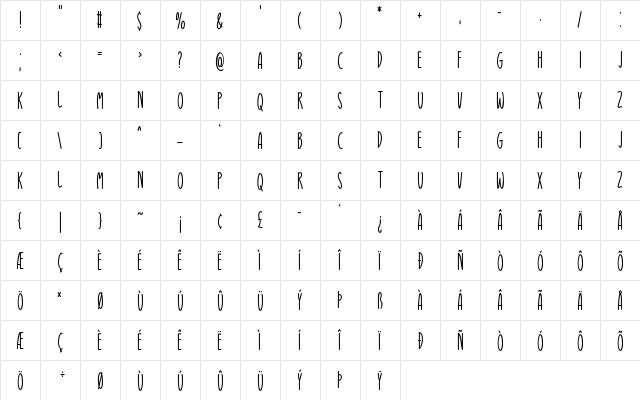
Look Within Regular Font Preview
Look Within Regular
Design Context for Look Within Typeface
Look Within takes a measured approach to typography — its balanced proportions and neutral character make it a reliable workhorse for both digital and print work. The delicate stroke weight brings airiness and refinement to layouts.